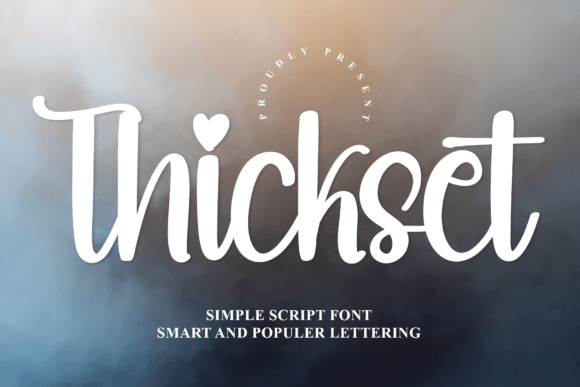
Welcome to the enchanting world of Thickset Font, a captivating script font family that will cast a spell on your creative projects. Inspired by the mystique of Halloween, Thickset Font captivates with its intricate details and bewitching charm. Created by the renowned K_IN Studio, this font is a masterpiece of digital calligraphy, ready to unleash your imagination.
Step into a realm of boundless creativity, where Thickset Font weaves its magic. Its elegant touch dances across your designs, leaving a trail of sophistication and enchantment. With its incredibly distinct and timeless style, Thickset Font possesses an irresistible allure that will turn your projects into visual wonders.
Picture the perfect Halloween invitation, alive with the spirit of the season. Thickset Font dances across the page, conjuring an atmosphere of mystery and excitement. Its sweeping strokes evoke the whispers of ghosts and the cackling of witches. Let your imagination run wild as you design posters, flyers, and social media graphics that capture the essence of this enchanting holiday.
But Thickset Font's allure extends far beyond Halloween. Its versatility knows no bounds, making it the perfect choice for a myriad of creative endeavors. Design mesmerizing logos and branding elements that leave a lasting impression. Craft enchanting wedding invitations and save-the-dates that reflect the joy and romance of your special day. Create eye-catching social media posts and graphics that command attention and ignite engagement.
With Thickset Font, the possibilities are endless. Its timeless beauty lends an air of elegance to any project, while its captivating personality adds a touch of whimsy and charm. Whether you're a seasoned designer or just starting your creative journey, Thickset Font is the perfect companion for your artistic explorations.
So, embrace the magic of Thickset Font and embark on a creative adventure like no other. Let your imagination soar as you craft designs that captivate and enchant. Fall under the spell of this bewitching font and unlock the true potential of your creative spirit.